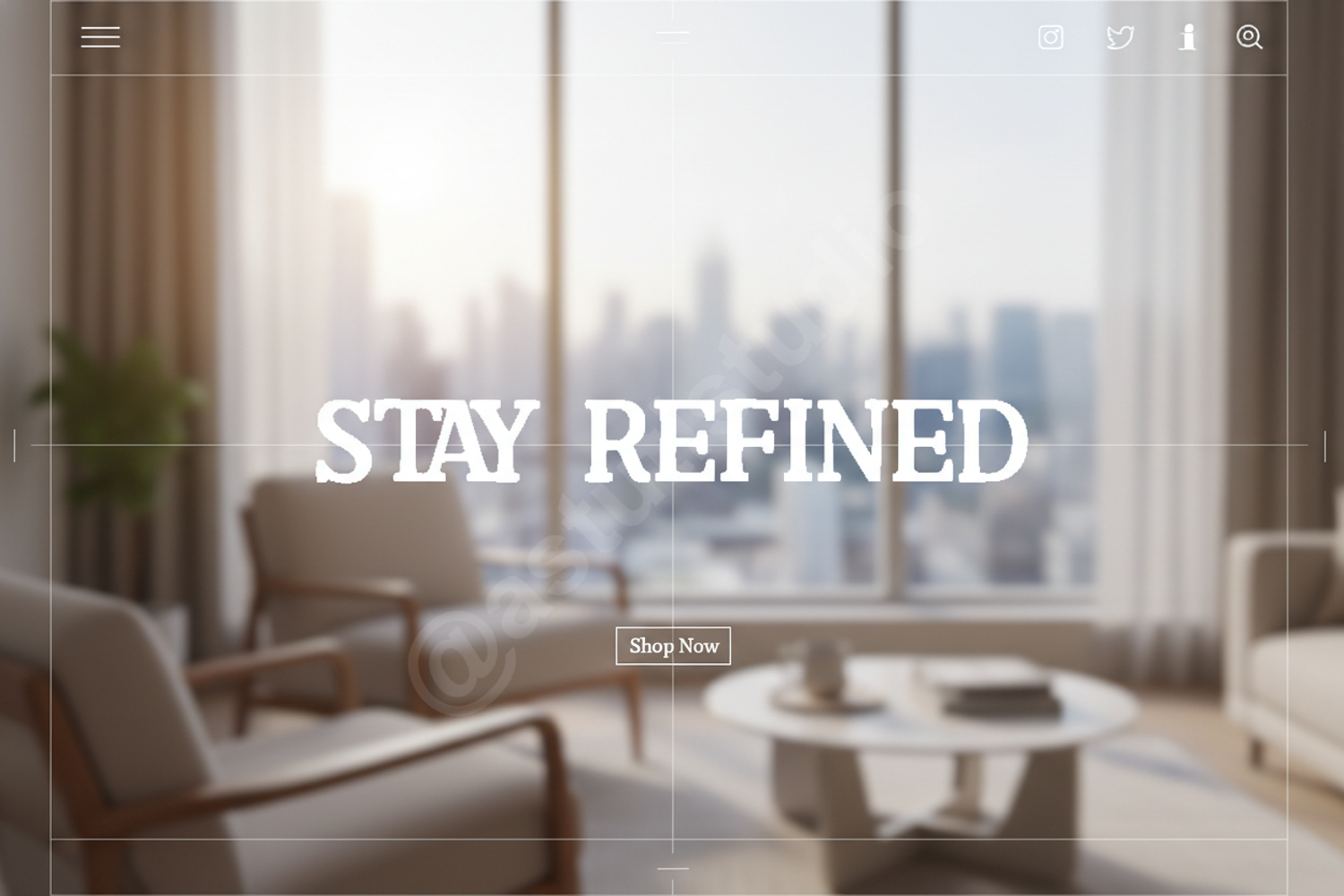
Jovemi - Sophisticated Modern Serif Typeface
Jovemi
Elevate your creative projects with Jovemi, a premium modern serif font that balances timeless elegance with contemporary flair. Designed with precision and a keen eye for detail, Jovemi offers a sophisticated aesthetic that commands attention while remaining highly legible. Whether you are crafting a luxury brand identity or designing a high-end editorial layout, Jovemi provides the versatility and professional polish your work deserves.
- Branding and Visual Identity: Perfect for logos, business cards, and brand guidelines.
- Editorial Design: Ideal for magazine headers, book covers, and sophisticated layouts.
- Wedding Stationery: Create stunning invitations, menus, and place cards with a touch of class.
- Digital Marketing: Enhance your social media graphics, website headers, and promotional banners.
- Product Packaging: Add a high-end feel to labels and box designs.